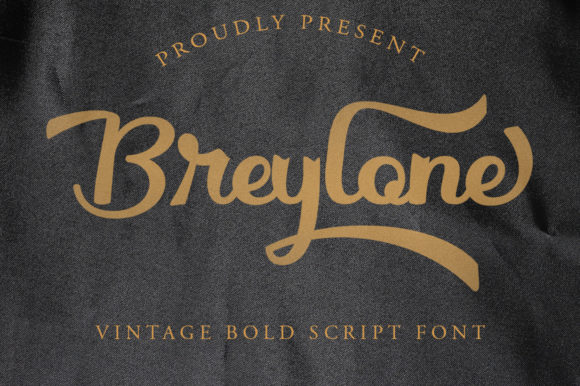
The Breylone Font: A Vintage Gem for Creative Projects
- 💥 **Unique and eye-catching**: Breylone’s bold, handwritten style makes it perfect for grabbing attention and adding a touch of personality to your designs.
- ✅ **Highly versatile**: Whether you’re working on a logo, invitation, or social media graphic, Breylone can adapt to any style or theme.
- 🌟 **Easy to read**: Despite its bold style, Breylone remains surprisingly legible, even at smaller font sizes.
- ⚠️ **Limited use in body text**: While Breylone is amazing for headings and titles, it may not be the best choice for longer blocks of text.
- 🤔 **Kerning issues**: As with any font, you may need to adjust the kerning to ensure that letters are spaced evenly.
The Story Behind Breylone
Breylone was designed with the intention of capturing the essence of vintage typography. Its creator drew inspiration from classic handwritten fonts, infusing them with a modern twist. The result is a font that’s both nostalgic and fresh.
| Font Name | Breylone Font |
| Author | Skinny type |